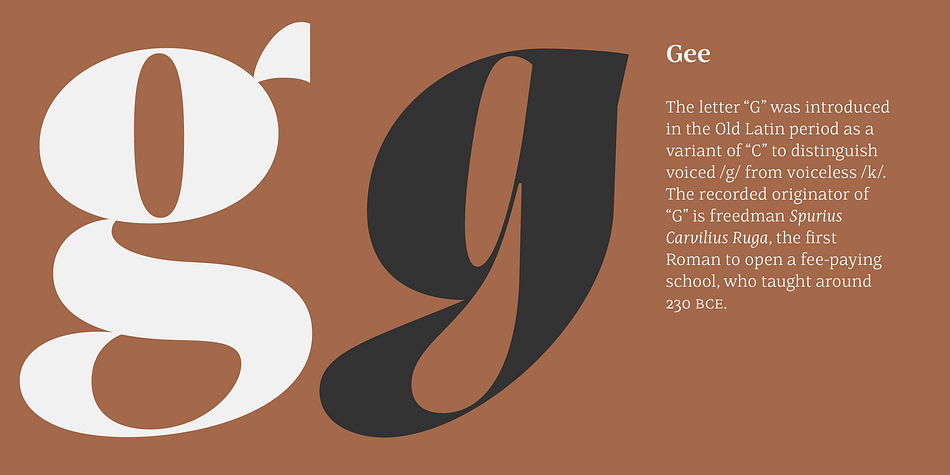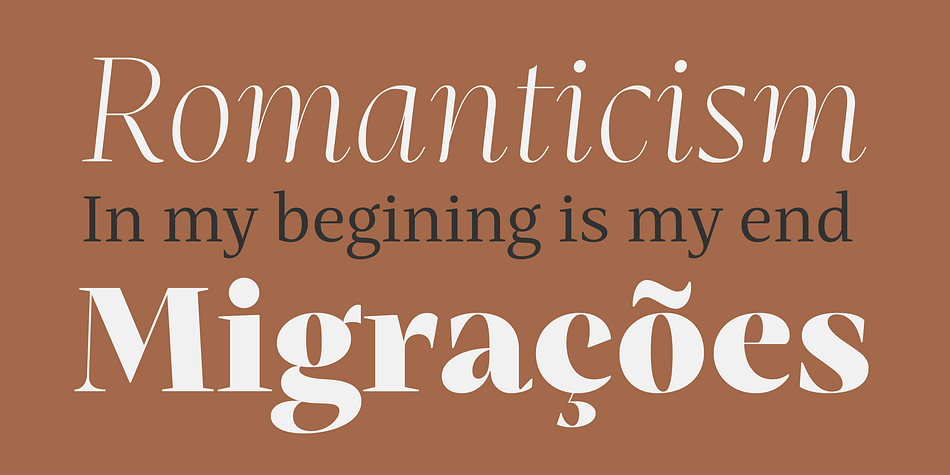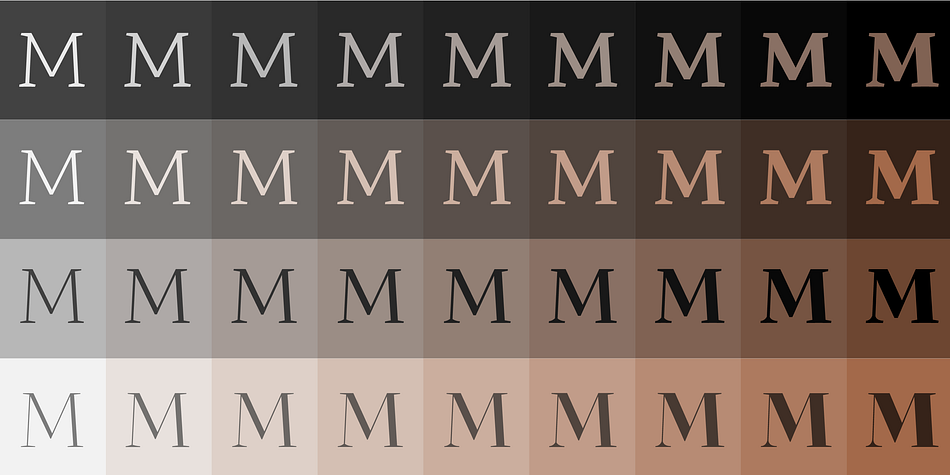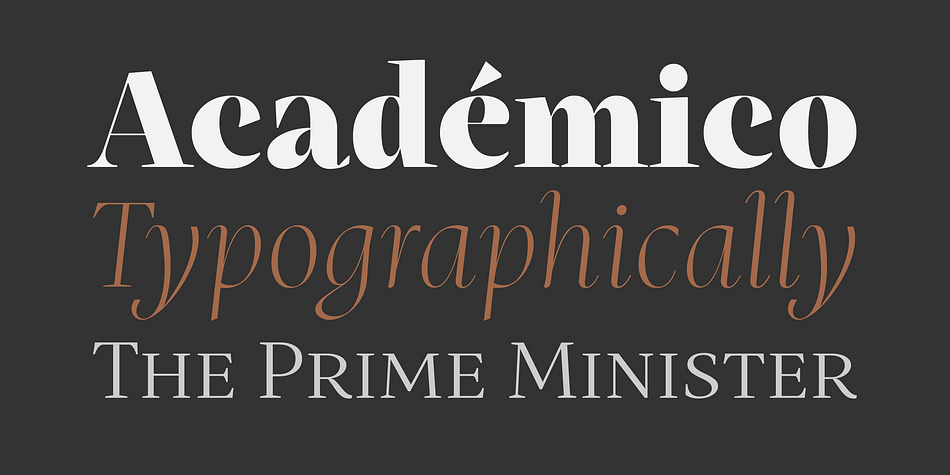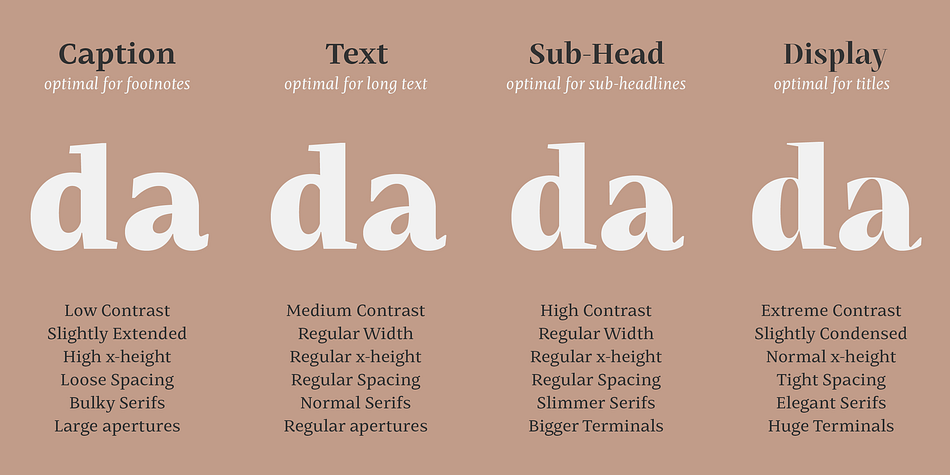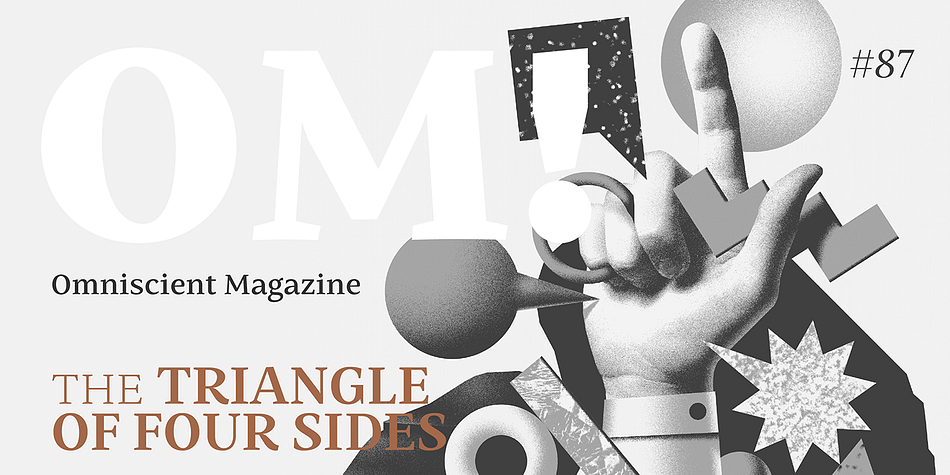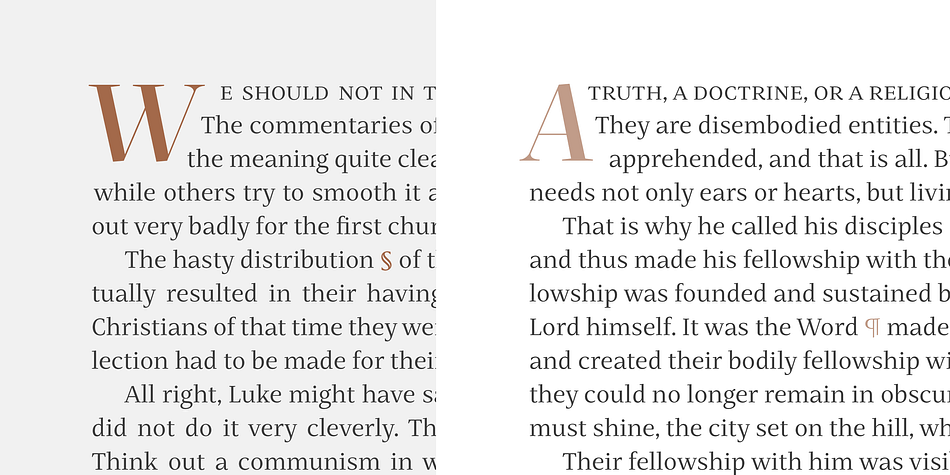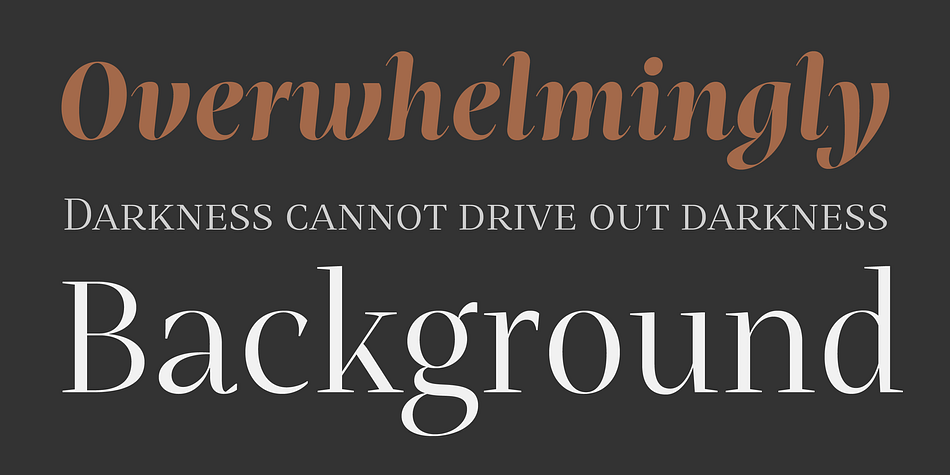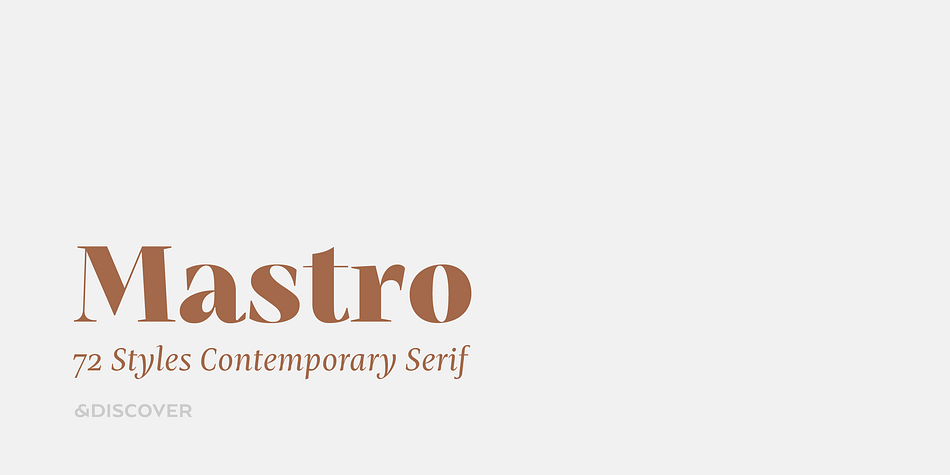
Designed by Natanael Gama, Mastro is a serif font family. This typeface has seventy-four styles and was published by Ndiscover.
Mastro is a contemporary design comprising 72 styles. With 9 weights and 4 optical sizes: Caption, Text, Sub-head and Display.
A super versatile font family ideal for editorial, graphic design, branding and web. Filled with iconic unusual shapes, yet with a super rigorous professional look this design will stand out and work efficiently.
Caption styles are meant for very small text like footnotes; Text styles are meant for long strings of text; Subhead styles are meant for sub-headlines; Display styles are meant for large size type setting.
Mastro has many OpenType features such as Small Caps, Standard and Discretionary Ligatures, Superscript Letters, Case Sensitive Forms, Lining Figures, Old Style Figures, Tabular and Proportional Numbers, and more.